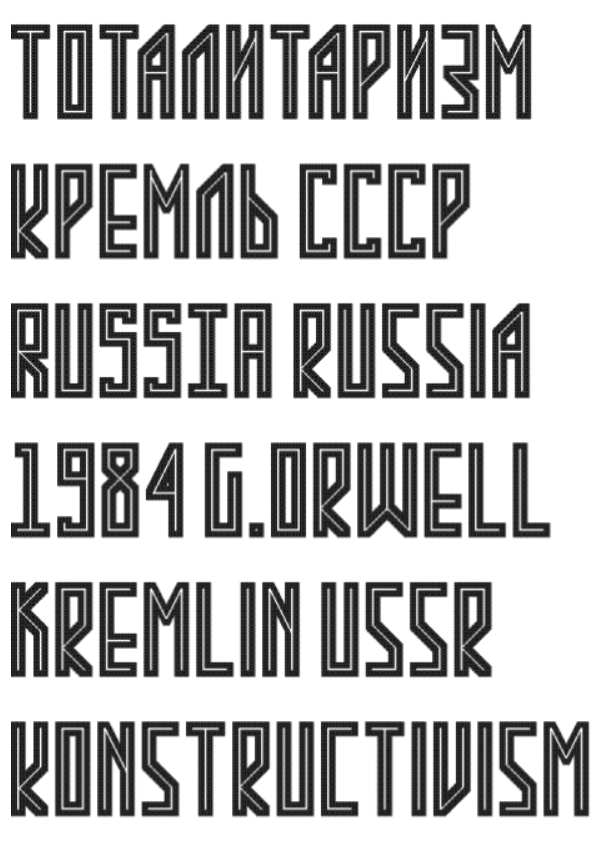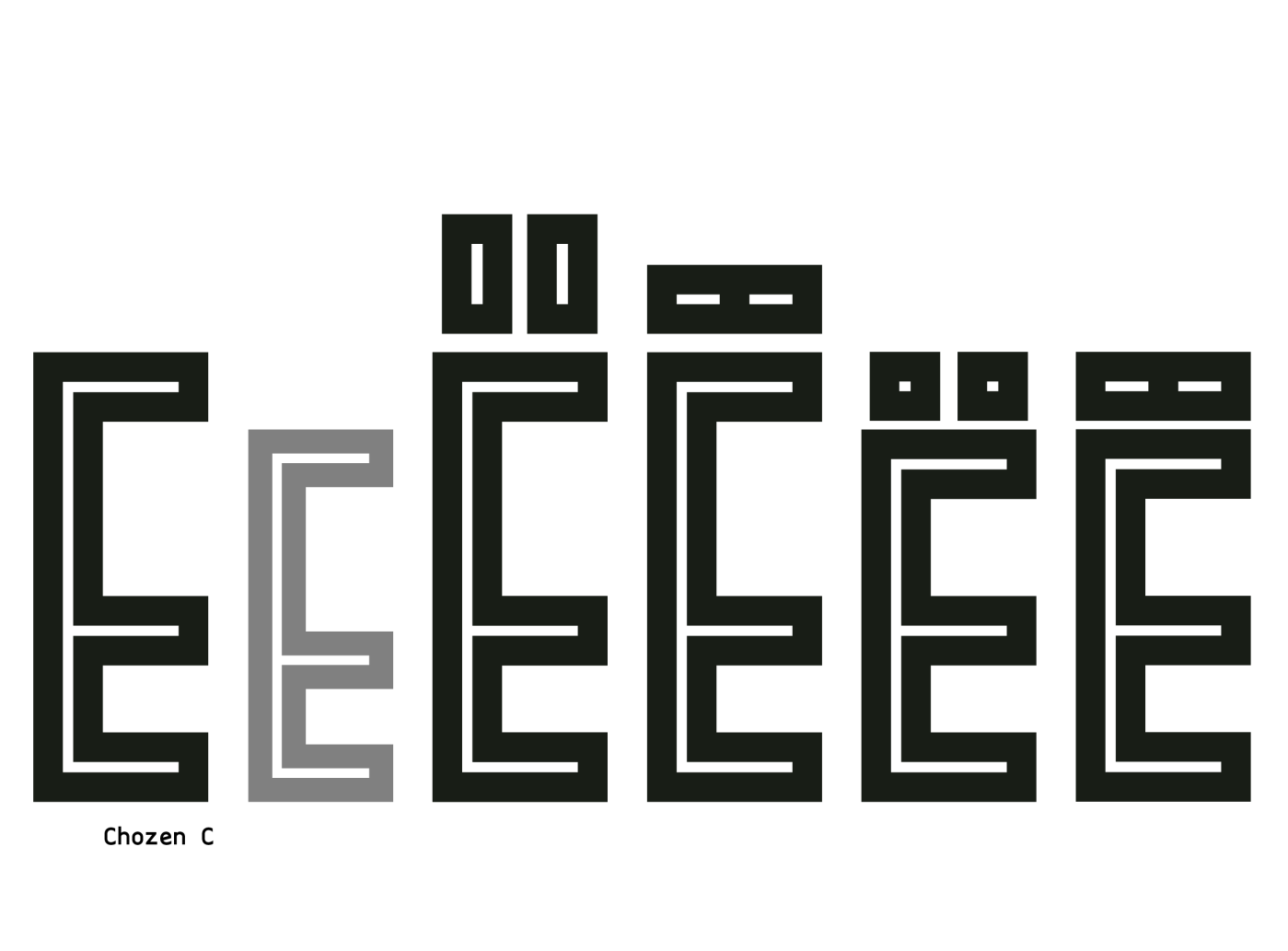
So nice, Very constructivist. I would place the dot a little higher and the comma a little lower so that the effect of the slender white line comes through there as well.
@beate: Thanks! I'm also interested in your opinion on the diacritic. I want to make it massive, but I'm not sure if it's better to make it separate (like with the letters E Ñ) or combined with the letter, like with the letter A.
It is nice to see multiple versions of letters and get a sneak peek into your creative process.
My suggestion would be to keep the height of the uppercase letters as is. If you make them smaller to incorporate the accents into the uppercase letters, you’d actually have to adjust the overall proportions accordingly—what do you think? In my opinion, the “E” takes on a different look in that case.
I also wouldn’t necessarily give the accents the same width and height, so the overall look doesn’t become too static. If you place them directly on the letters, it can look very dark, and the inline effect gets lost a bit.
There are so many possibilities; you’ll find the one that works for you. I like your different approaches.